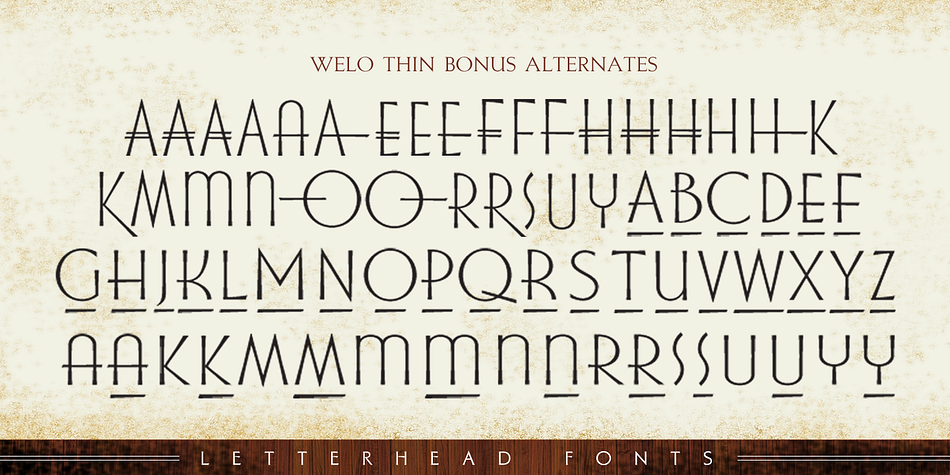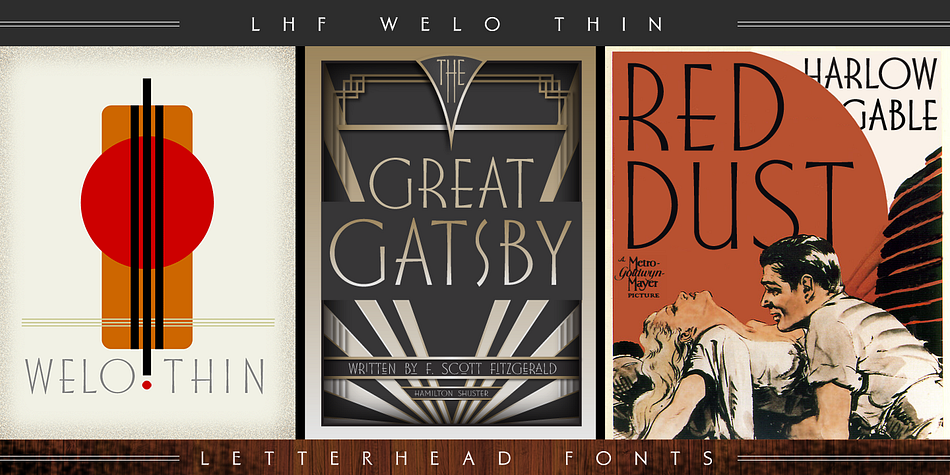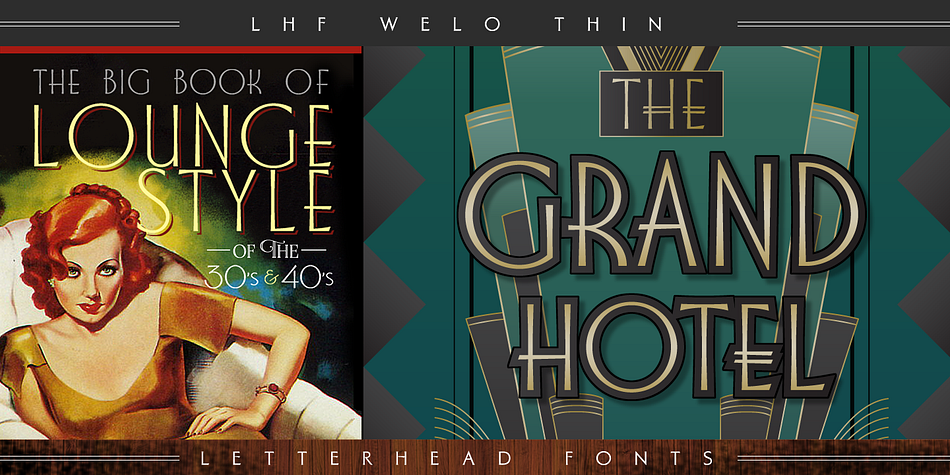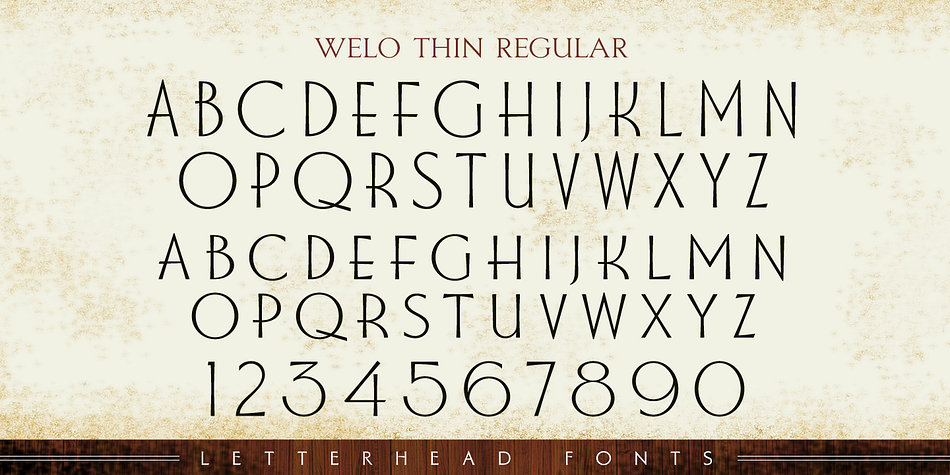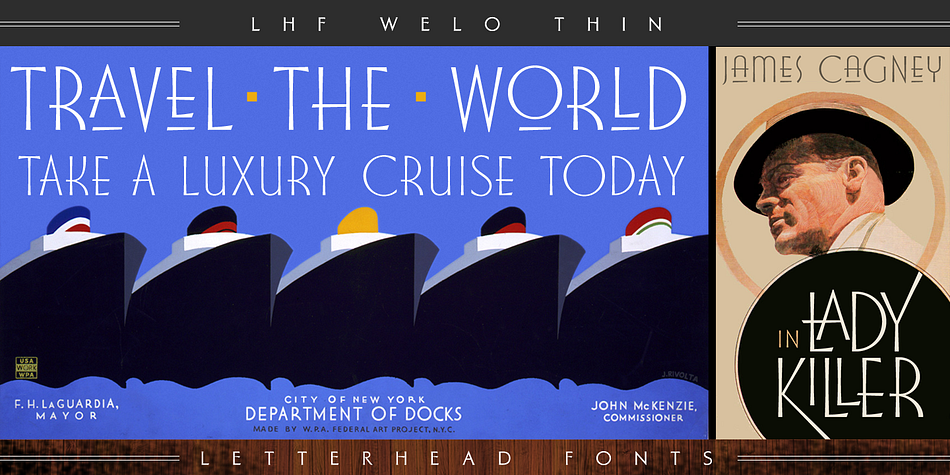
Designed by Patrick Kalange, LHF Welo Thin is a art deco font published by Letterhead Fonts.
A classic Art Deco period style inspired by Samuel Welo, circa 1930. Letters are widely spaced to allow the subtle beauty of the letters to shine. Includes over 30 bonus alternates and two sets of small caps which are designed to be used at the cap height rather than sit on the baseline.
Foundry | Letterhead Fonts |
Designer | Patrick Kalange |